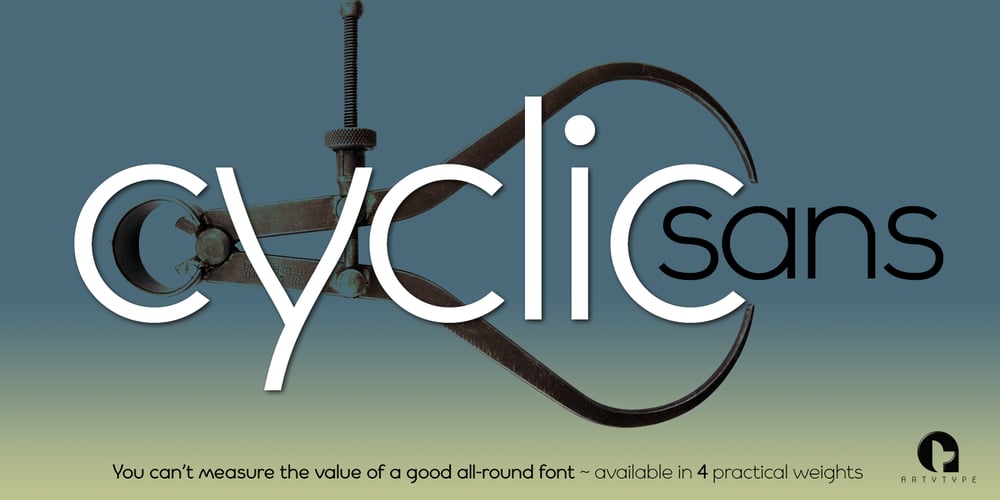
Cyclic Sans
Cyclic Sans font
Cyclic Sans Font Family was designed by James Marsh and published by ArtyType. Cyclic Sans contains 4 styles and family package options. Cyclic Sans is a legible and highly distinctive type family in four weights, running from Light to Heavy. A stoic sans, imbued with strength and charm, the fonts can be paired with their Cyclic Serif counterparts to stunning effect. Cyclic Sans is a stylish modern face and a versatile all-rounder, ideal for both text and headline use.